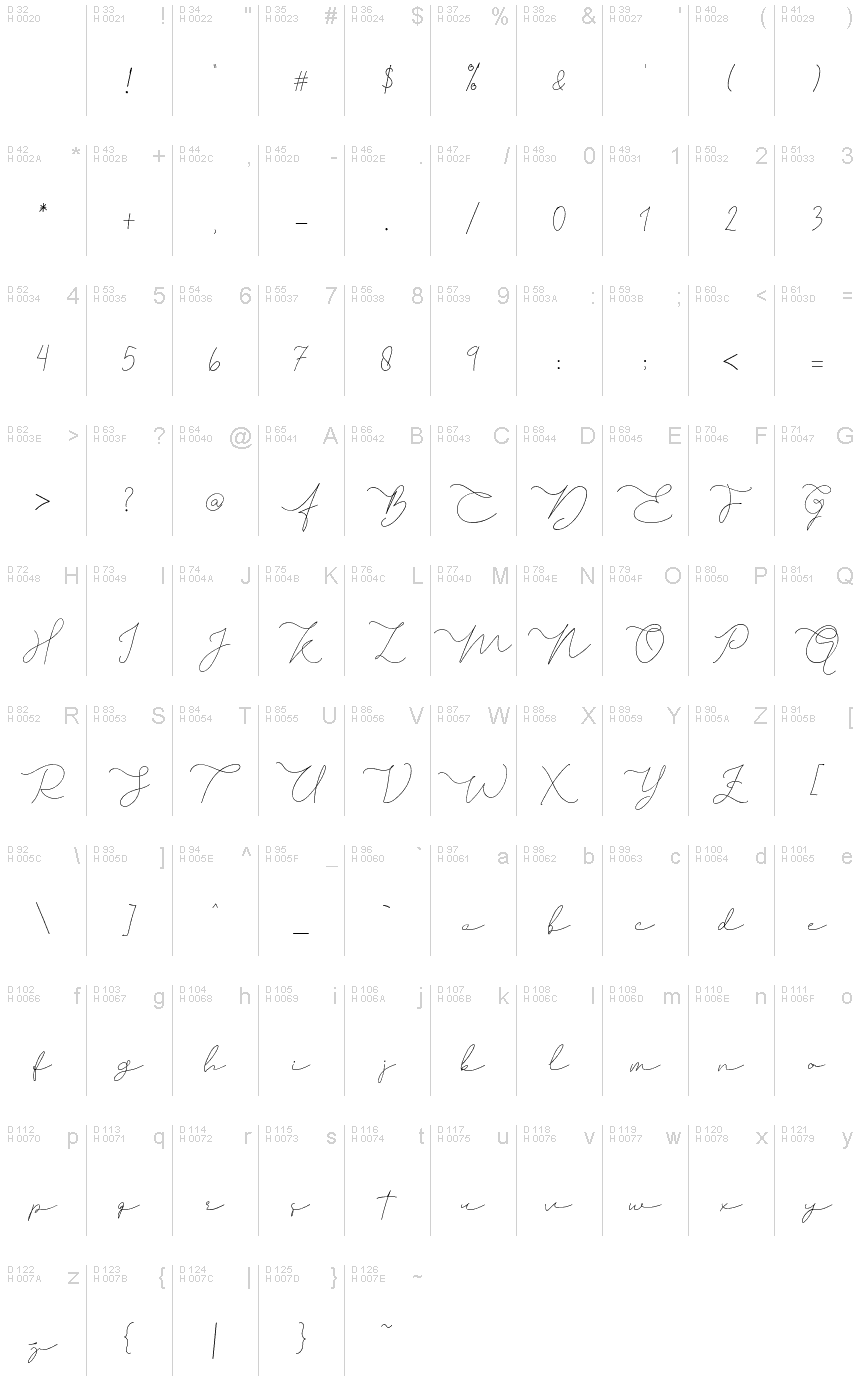
Thampholine
Introducing Thampholine Font
Thampoline is a beautiful signature font, can make your design project look elegant, classy and modern, this font perfect for branding, invitation, stationery, wedding designs, social media posts,
product packaging, product designs, label, photography, watermark, special events or anything.
Thampoline comes with full set of uppercase and lowercase letters, ligatures, alternate styles symbols and numerals